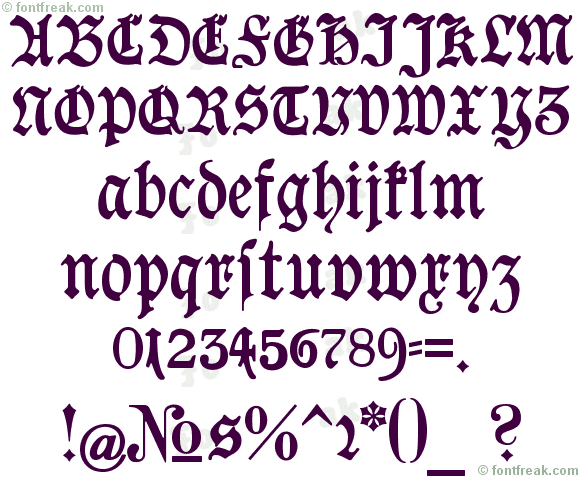
Goeschen Fraktur
About Goeschen Fraktur
Goeschen Fraktur, designed by Peter Wiegel, is a striking serif font that embodies the traditional elegance of German blackletter typefaces. With its distinctive sharp angles and ornate strokes, this font captures the essence of historical typography while maintaining a contemporary usability. The stroke weight varies significantly, creating a high contrast that enhances its dramatic appearance. The spacing is expertly balanced, allowing for legibility even in larger blocks of text. Decorative elements, such as the intricate serifs and flourishes at the terminals, contribute to its unique character, making it a standout choice for various design applications.
This font is an excellent choice for wedding invitations, where its formal aesthetic can add a touch of sophistication. It also shines in movie posters, especially for period dramas or films with a historical theme, helping to evoke a sense of time and place. Restaurant menus, particularly those with a classic or rustic vibe, can benefit from the elegant flair of Goeschen Fraktur, enticing diners with its visual appeal. Additionally, small business branding—especially for companies looking to convey tradition or craftsmanship—can effectively leverage this font to create a memorable identity.